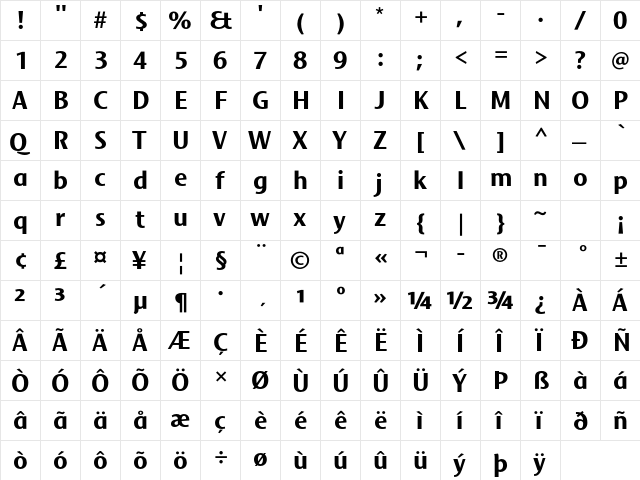
Mosquito Formal Std Bold
Design Context for Mosquito Formal Std Typeface
Mosquito Formal Std offers clean, dependable letterforms without strong stylistic allegiance, making it a practical choice for designers who need flexibility. Its bold stroke weight gives it real presence on the page.
Pro Tip: Pair Mosquito Formal Std with a font of contrasting weight or personality to build a more expressive typographic hierarchy.